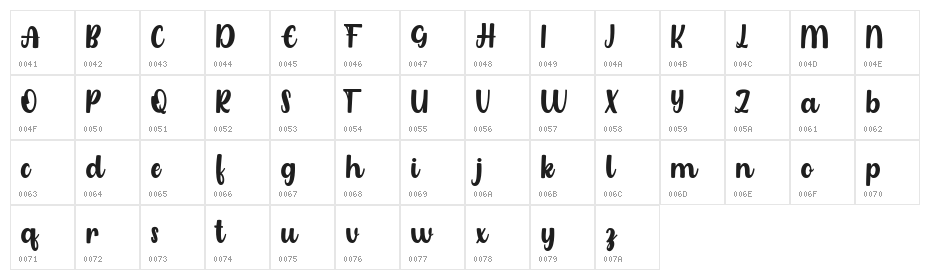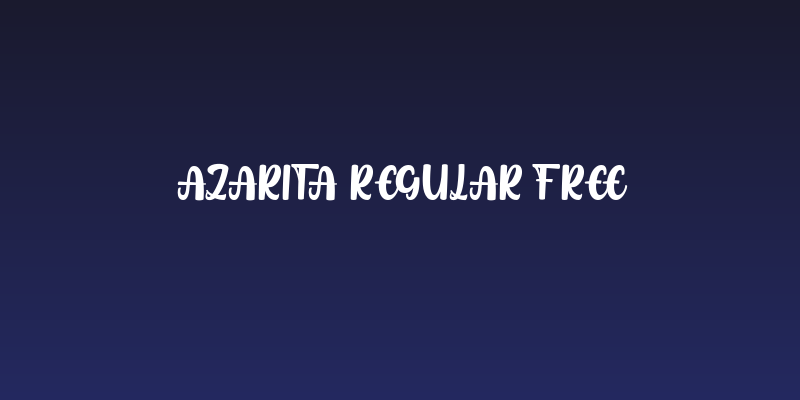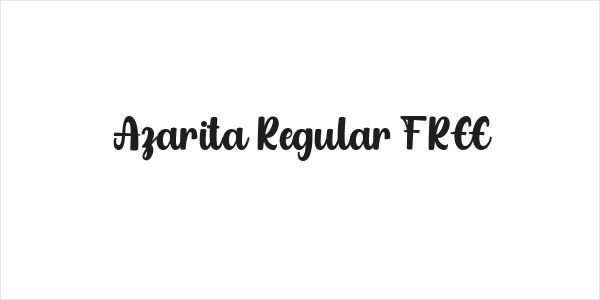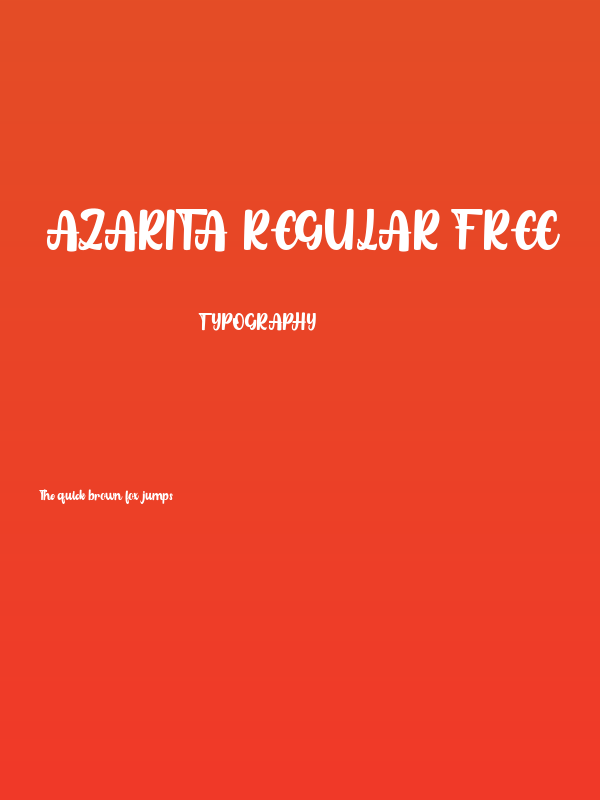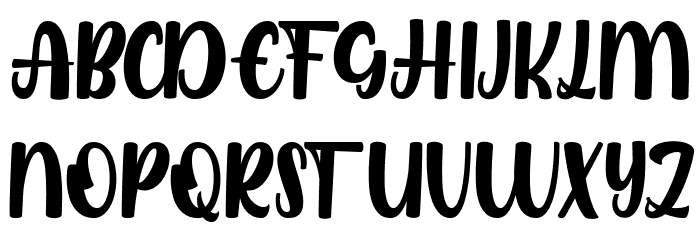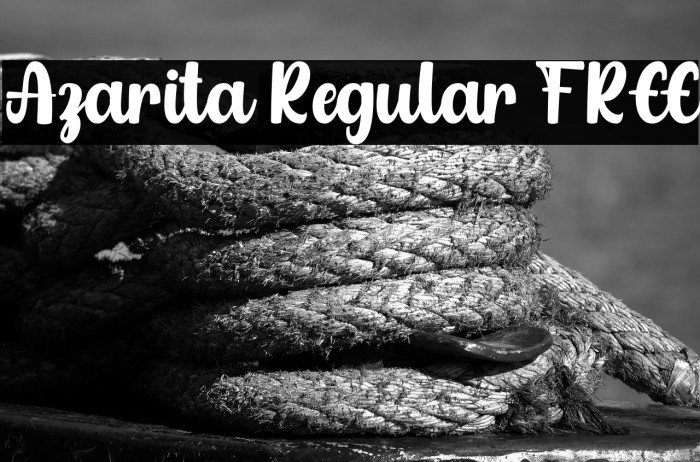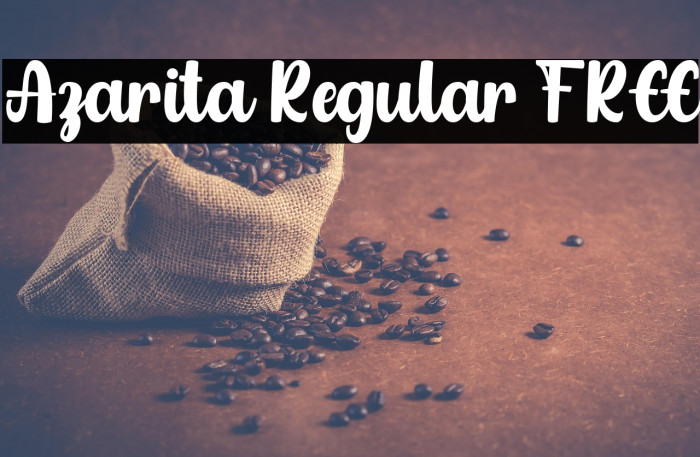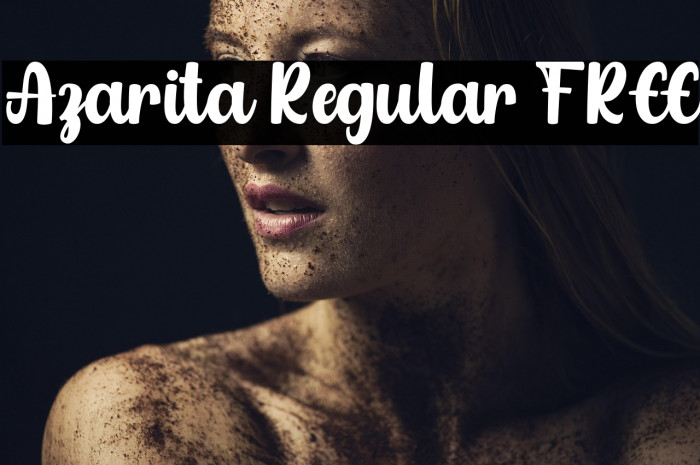
Azarita Regular FREE Font
Azarita Regular FREE Description
This font features a bold and playful script style with a handwritten feel. The characters are rounded and connected, giving it a fluid and dynamic appearance. The uppercase letters are tall and slightly condensed, while the lowercase letters maintain a consistent flow with smooth curves and loops. The font's thick strokes and high contrast make it stand out, adding a touch of whimsy and creativity. Its unique style is suitable for projects that require a personal and artistic touch.
| Proposed Projects | Ideal for greeting cards, invitations, logos, and creative branding projects. |